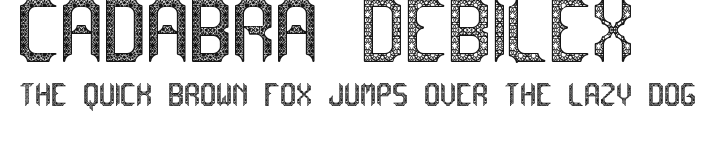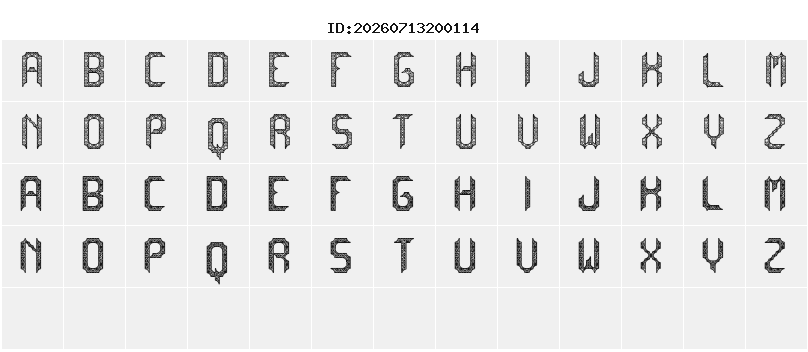
• Font Name: cadabra DEBILEX
• Full Font Name: cadabra DEBILEX
• Version: Version 1.00 January 14, 2013, initial release
• Designer: kaiser zhar khan
About cadabra DEBILEX.ttf
cadabra DEBILEX.ttf is a modern, elegant sans-serif font designed for ultimate readability and visual harmony. Perfect for branding, headlines, web design, and print materials.